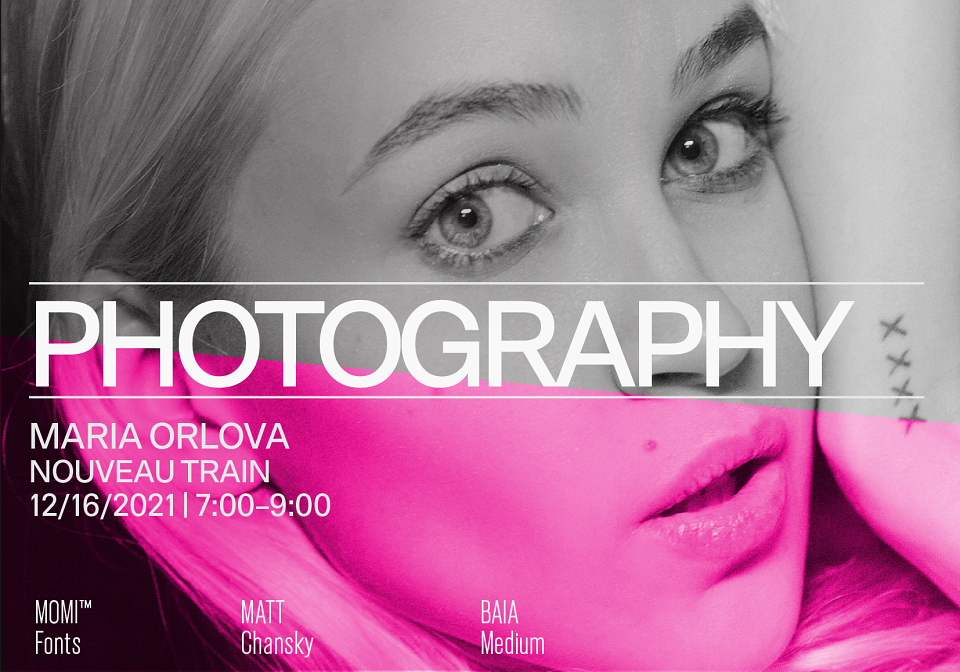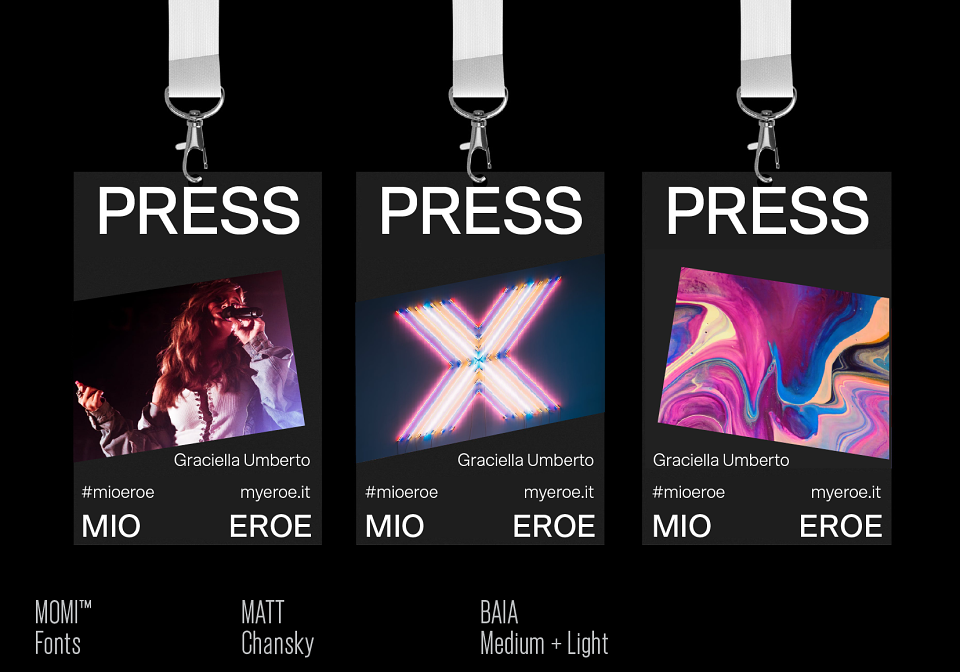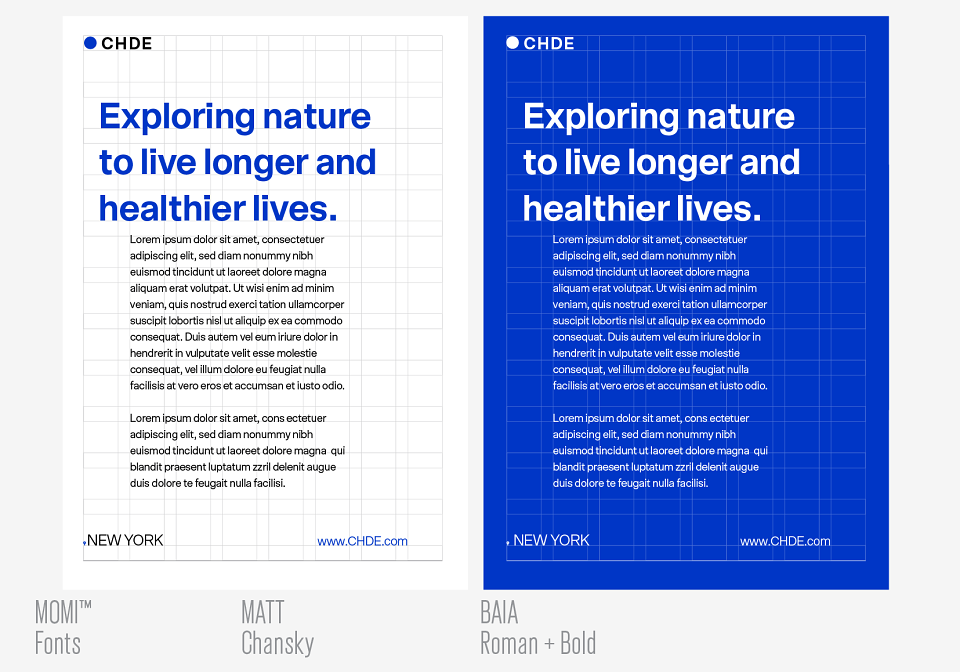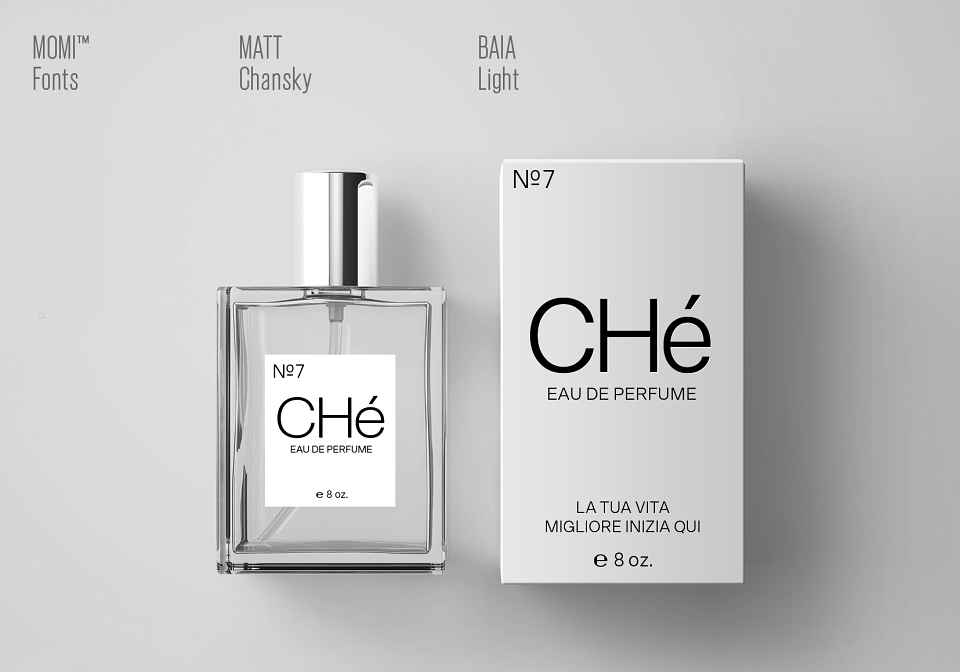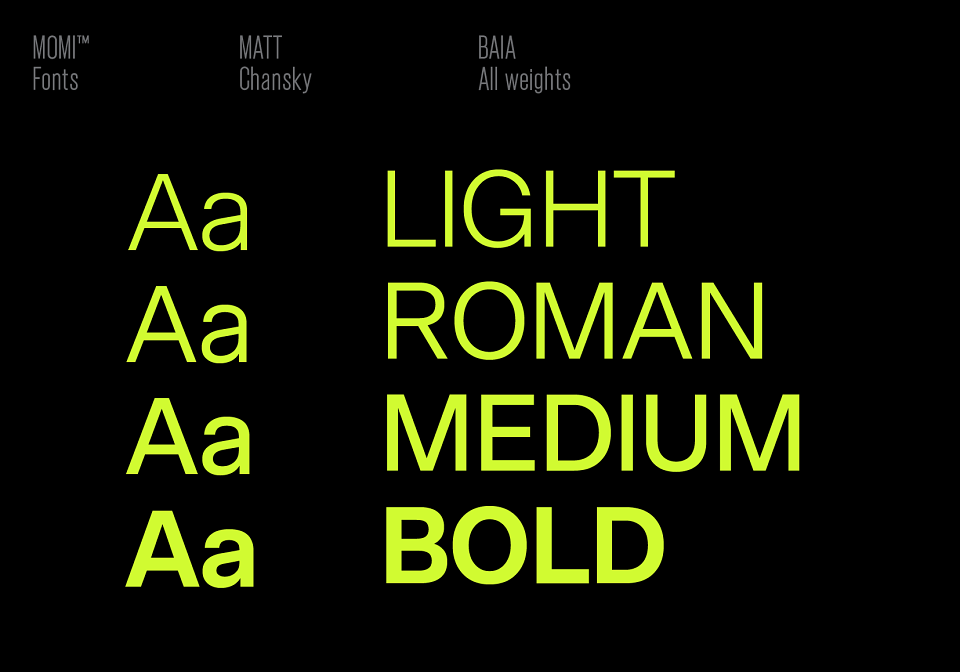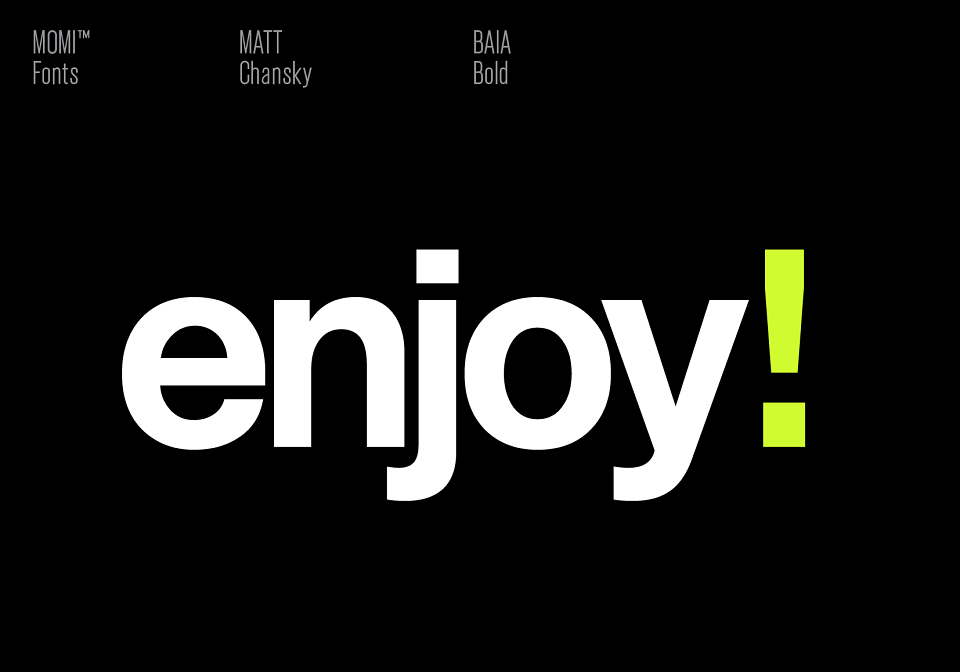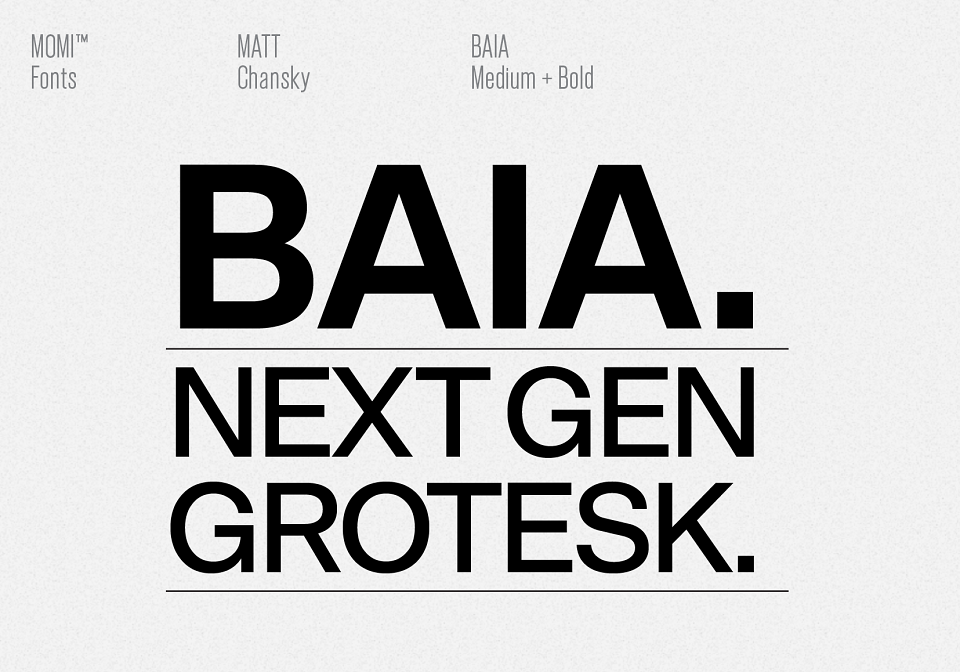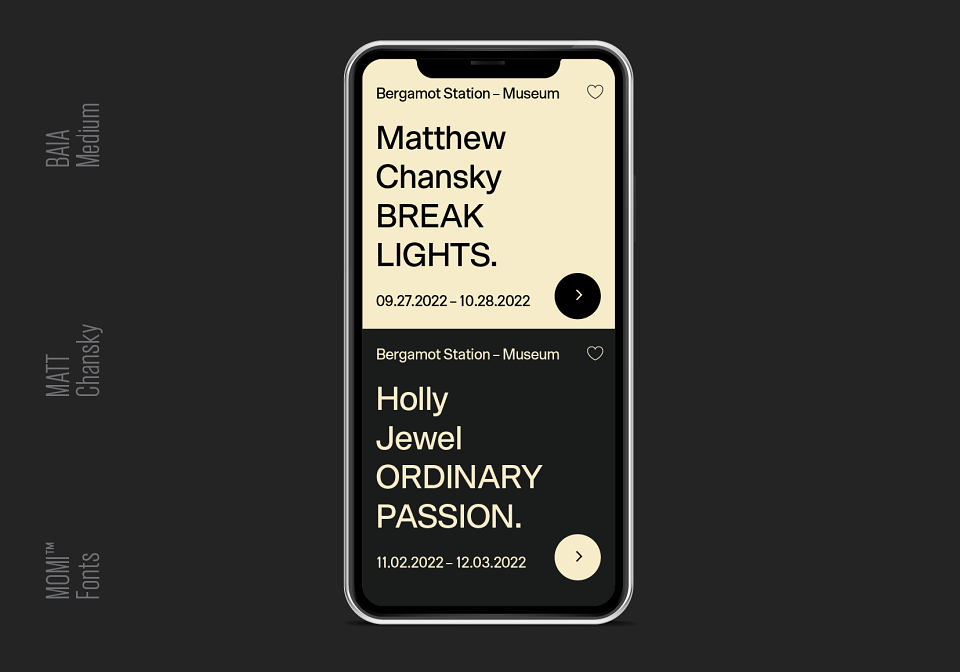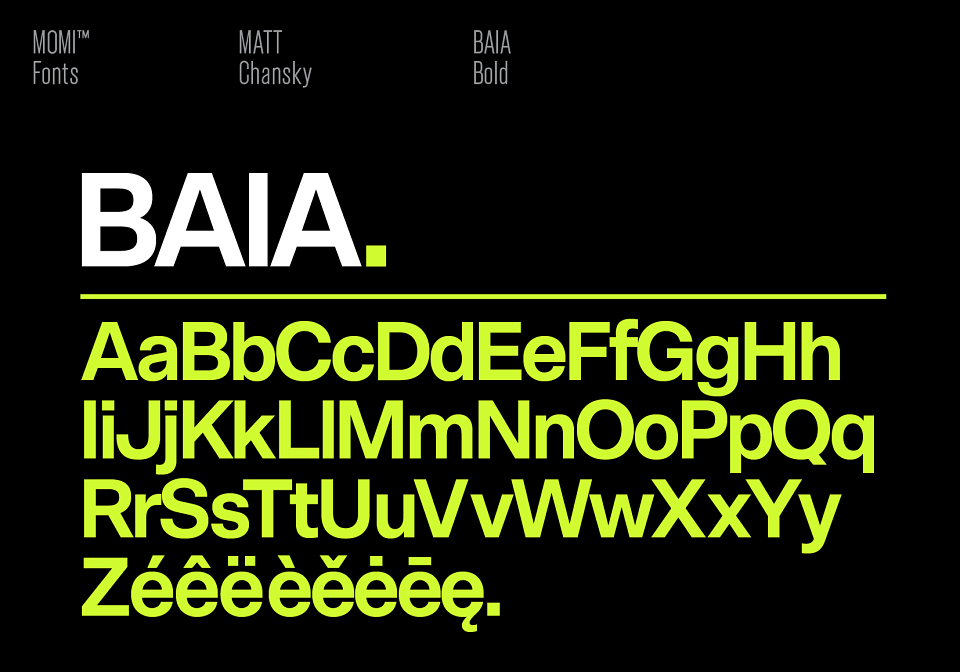
Born to web. The clean modern lines and generous typography characters were carefully crafted for designers to maintain print and web brand continuity. BAIA has four weights – an elegant light and roman weight and a strong medium and bold weight. BAIA, designed by Matt Chansky, is engineered with an innovative high x-height for both print and screen optimization. Foreign-language-friendly.
BAIA Print and Web Font